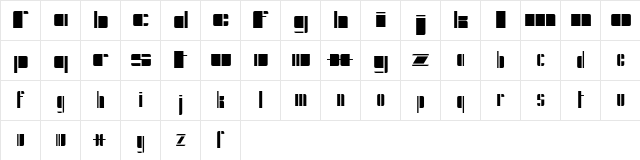
Glas Deco Mo1 Regular Font Preview
Glas Deco Mo1 Regular
Glas Deco Mo1 Regular Font Details
| Foundry | Mindofone Fonts |
Design Context for Glas Deco Mo1 Typeface
Glas Deco Mo1 is a composed and adaptable typeface that performs quietly and consistently across a wide range of design contexts.